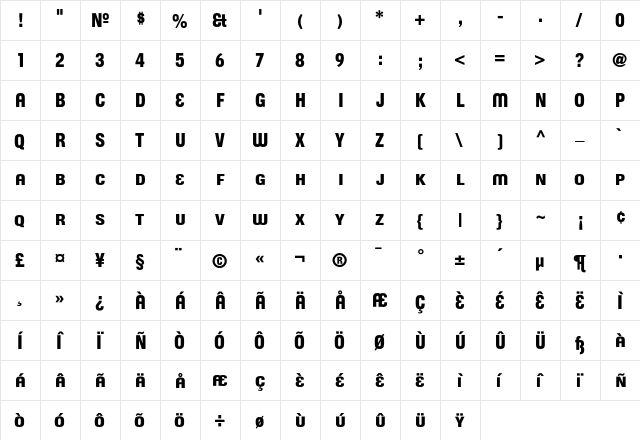
CorpuGotAltSmaCap Regular
Design Context for CorpuGotAltSmaCap Typeface
CorpuGotAltSmaCap offers clean, dependable letterforms without strong stylistic allegiance, making it a practical choice for designers who need flexibility.